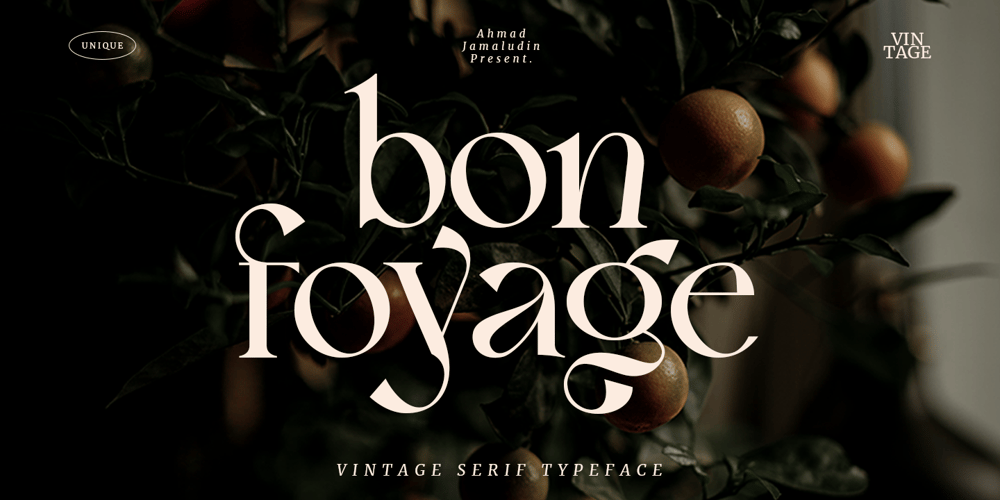
Bon Foyage Font Family was designed by Ahmad Jamaludin and published by Ahmad Jamaludin. Bon Foyage contains 1 styles and family package options. Start new year for new font! present to you, Bon Foyage!Bon Foyage is a Vintage modern serif typeface with unique letterforms, beautiful alternative glyphs, and complete multilingual support. Every letter has a subtle uniqueness to it, from the alternate letterforms of “g, j, y”, these glyphs are memorable!This font is perfect for editorial projects, logo design, clothing branding, product packaging, magazine headers, or simply as a stylish text overlay to any background image.Features : Unique letterforms Works on PC & Mac Simple Installations Accessible in the Adobe Illustrator, Adobe Photoshop, Adobe InDesign, even work on Microsoft Word. PUA Encoded Characters Fully accessible without additional design software. Follow my shop for upcoming updates including additional glyphs and language support.